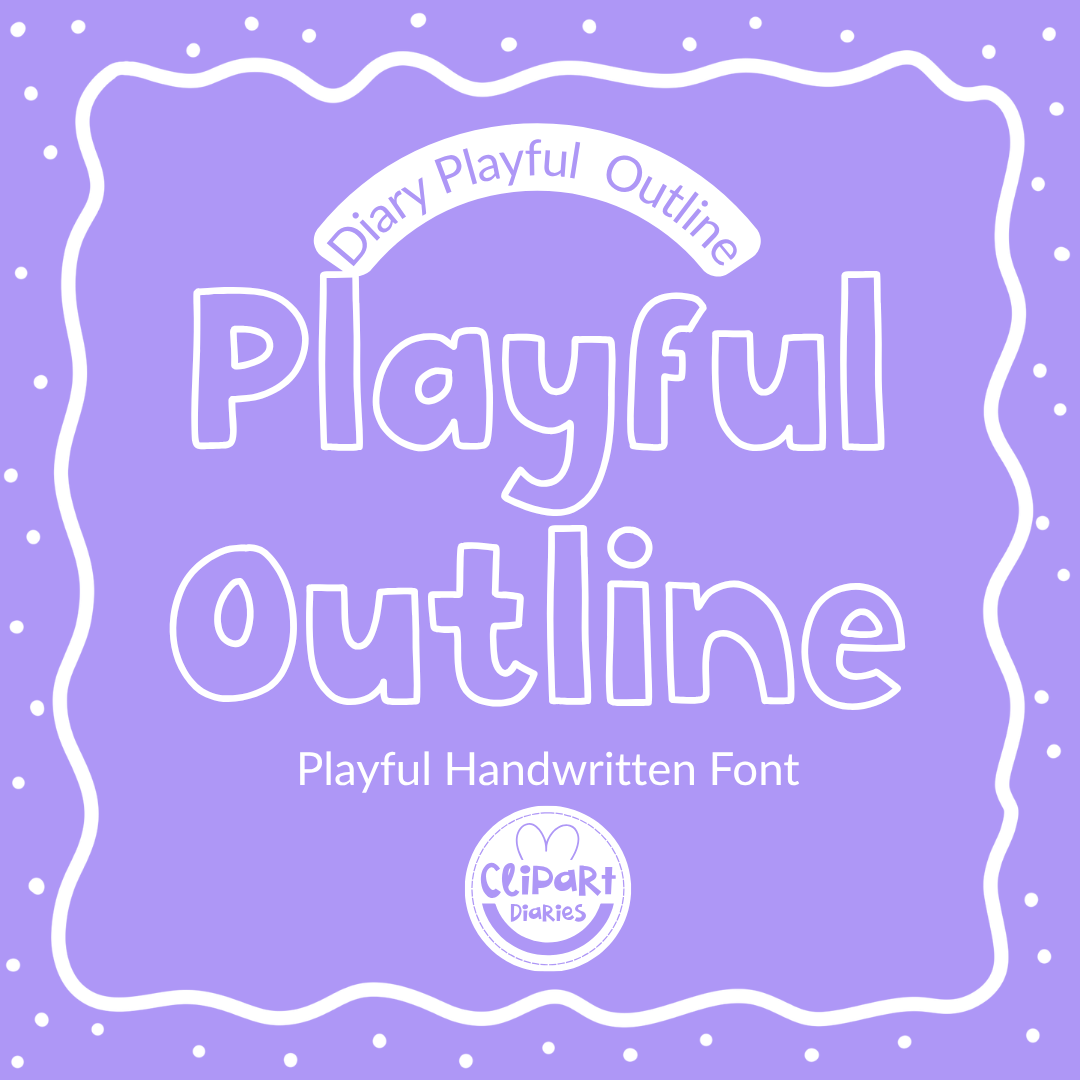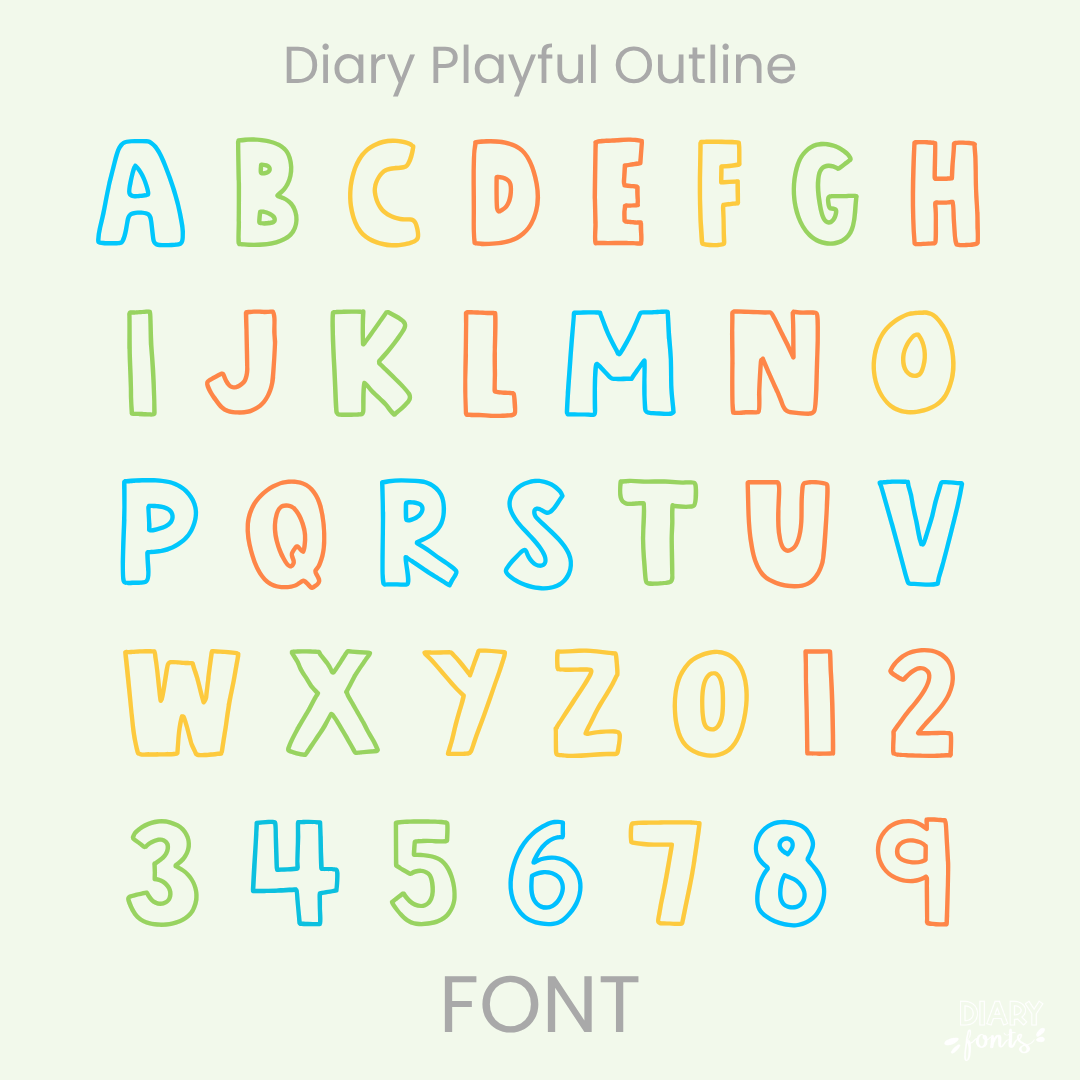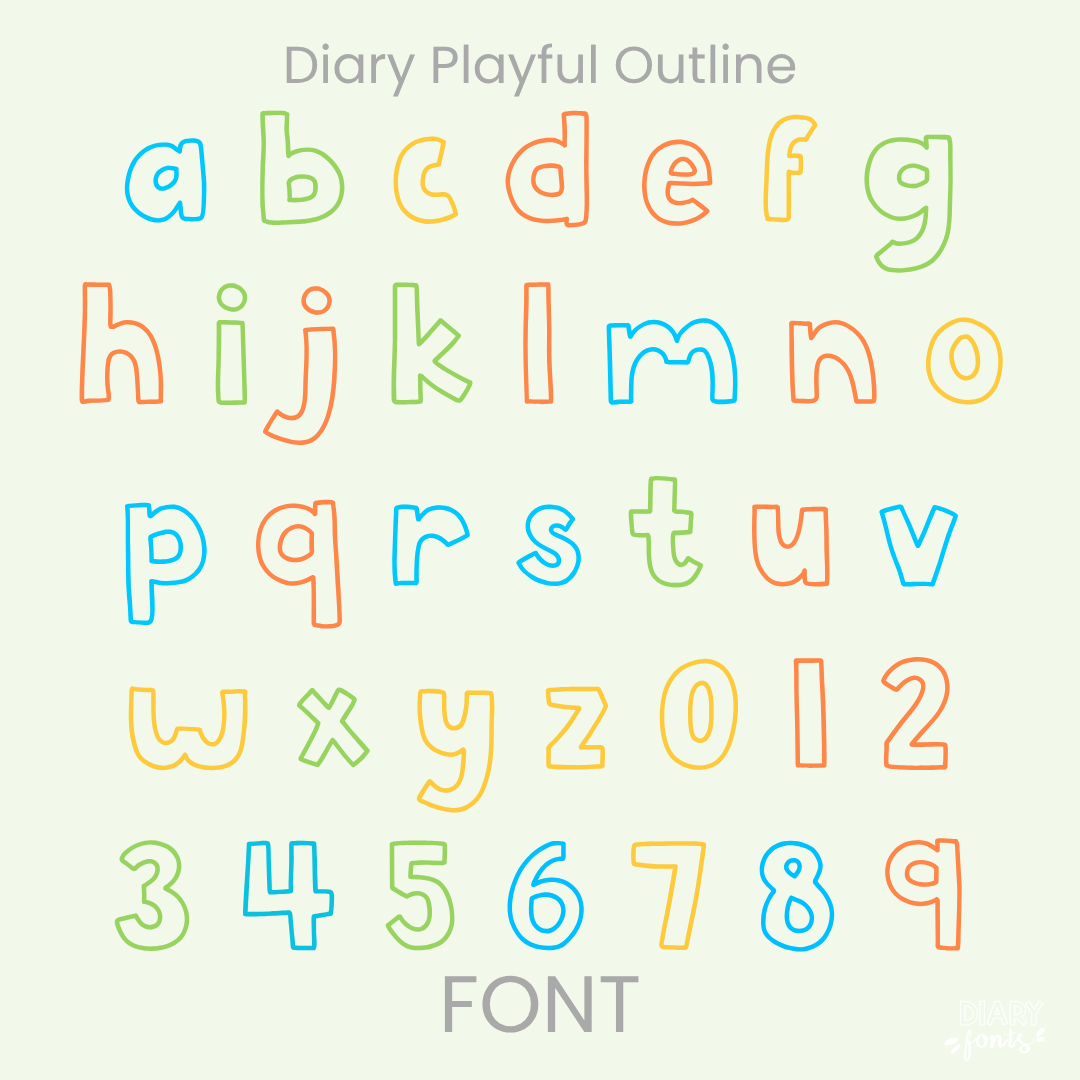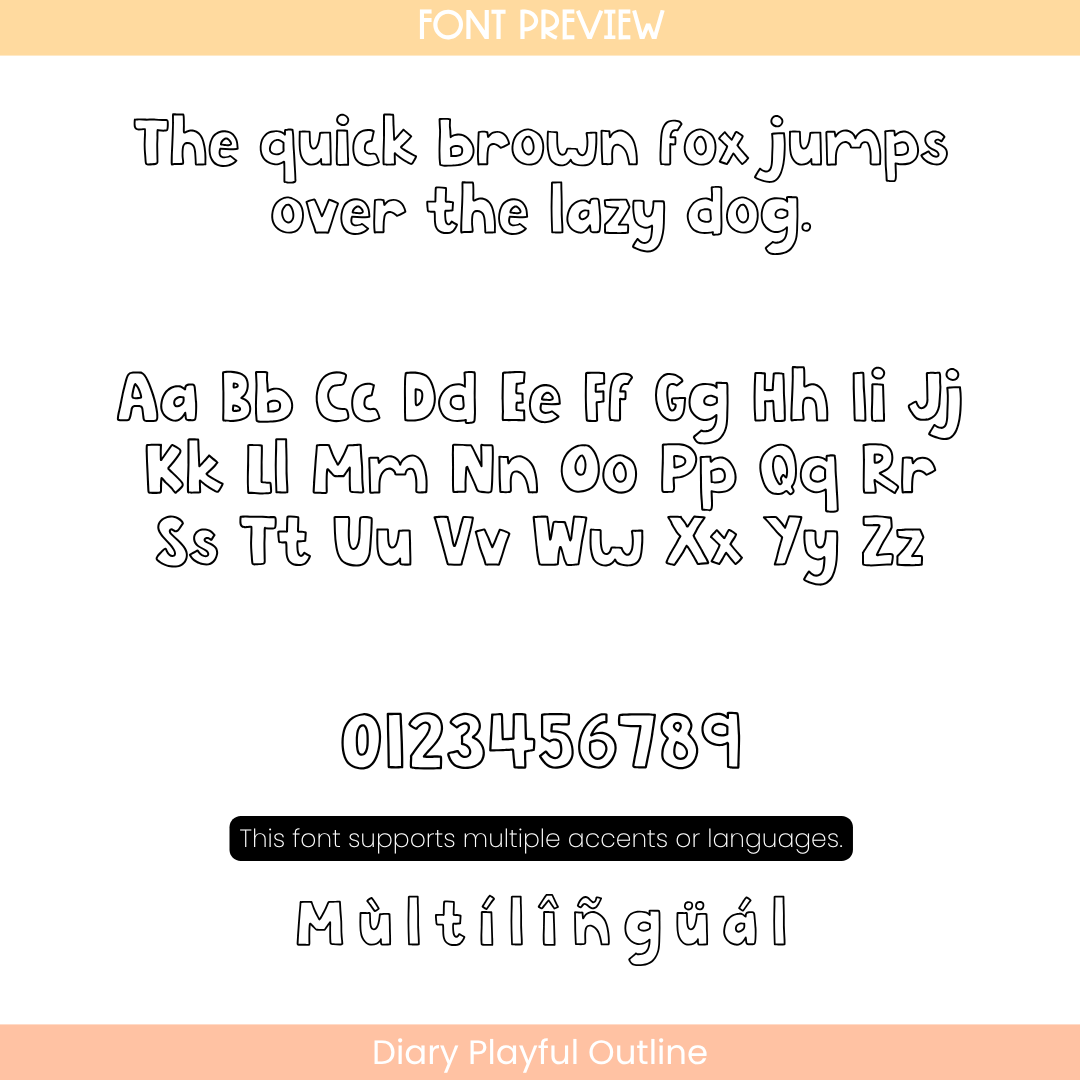
Diary Playful Outline Font – Handwritten Font
The Diary Playful Outline is an open, hollow, hand-drawn display font designed to bring a lighthearted, customizable, and eye-catching look to your titles, worksheets, and classroom activities.
If you want to give your teaching resources an engaging, modern, and interactive feel, Diary Playful Outline is an excellent choice. It features light, bouncy handwritten characters drawn with clean, distinct outer paths and empty centers. Because the letters are hollow, it is highly optimized for creative classroom tasks, making it a fantastic tool for student coloring activities, hand-drawn heading overlays, and custom-layered title designs.
While keeping a cheerful, casual personality, it maintains exceptional letter spacing and clean alignments to ensure your text remains perfectly clear and easy for young readers to follow. This makes it an ideal fit for primary worksheets, creative project headers, morning meeting slides, and standout bulletin board decorations. The font package includes a full set of uppercase and lowercase open letters, numbers, and multiple accents for complete multilingual support. It installs quickly on your computer and functions seamlessly across Canva, MS Office, and Adobe Apps, as well as on your iPad with Procreate and GoodNotes. Whether you are creating fun visual resources for your own students or packaging premium assets for commercial use, this outline typeface adds a fresh, approachable, and highly creative aesthetic to your toolkit.